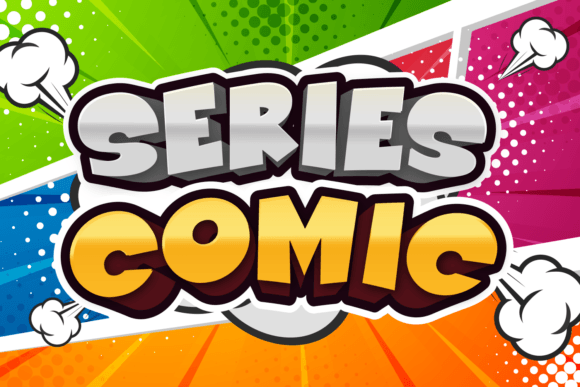
Introducing Series Comic Font: The Ultimate Superhero Display Font
The world of typography is vast and diverse, with numerous font styles to choose from, each with its unique characteristics and uses. Among these, display fonts hold a special place, particularly in designs that require a bold and eye-catching statement. One such font that has gained significant attention for its chunky letters and playful look is the Series Comic Font. This excellent superhero display font has become an incredible asset to any design library, offering a wide range of creative possibilities.
Key Features of Series Comic Font
- Chunky Letters: The Series Comic Font boasts thick, chunky letters that give it a robust and strong appearance, perfect for making a bold statement in any design.
- Playful Look: Despite its boldness, the font maintains a playful and fun vibe, making it suitable for a variety of creative projects, from children’s apparel to superhero-themed posters.
- Versatility: The font’s versatility is one of its standout features. It can be used for creating memorable posters, headlines, titles, book covers, signage, advertisements, kids’ t-shirts, apparel, and more.
Celebrating Creativity: Diverse Usage Ideas for Series Comic Font
The Series Comic Font’s adaptability makes it a favorite among designers. Here are some innovative ways to utilize this fantastic font:
- Posters and Flyers: Create eye-catching posters and flyers for events, movies, or product launches. The bold and playful nature of the font ensures that your message grabs attention.
- Headlines and Titles: Use Series Comic Font for headlines in newspapers, magazines, or digital publications to add a touch of excitement and dynamism.
- Book Covers: For authors and publishers looking for a font that can convey action, adventure, or fun, Series Comic Font is an excellent choice for book covers, especially for genres like superhero comics, children’s books, and young adult fiction.
- Signage: Whether it’s for indoor or outdoor use, this font can make your signage stand out, ensuring that your message is clear and visible from a distance.
- Advertisements: In advertising, capturing the audience’s attention is crucial. Series Comic Font, with its bold and playful look, can help create ads that are not only noticeable but also memorable.
- Kids’ T-Shirts and Apparel: The playful vibe of the font makes it perfect for designing kids’ t-shirts, hoodies, and other apparel. It’s also a great choice for superhero-themed merchandise.
Design Tips for Using Series Comic Font
To maximize the potential of Series Comic Font, consider the following design tips:
- Pair with Complementary Fonts: While Series Comic Font can be a powerful statement on its own, pairing it with simpler fonts can create a balanced and visually appealing design.
- Play with Colors: Don’t be afraid to experiment with vibrant colors that complement the playful nature of the font. Bright colors can enhance the superhero feel, making your design more engaging.
- Utilize White Space: Effective use of white space around your text can make the bold letters of Series Comic Font pop even more, ensuring your design doesn’t feel cluttered.
- Consider the Context: Ensure that the font aligns with the overall theme and message of your design. The superhero and playful vibe of Series Comic Font makes it suitable for projects targeting a younger audience or those with a fun and adventurous theme.
The Impact of Series Comic Font on Design
The inclusion of Series Comic Font in a design library can significantly impact the creative output. Its unique blend of boldness and playfulness opens up a myriad of possibilities for designers. Here are some impacts it can have:
- Increased Creativity: Knowing that a font like Series Comic Font is available can inspire designers to explore more creative and unconventional ideas.
- Enhanced Visual Appeal: The font’s chunky and playful characteristics can add a fresh and modern touch to designs, making them more visually appealing.
- Broader Audience Reach: The fun and approachable vibe of the font can help designs connect with a broader audience, especially younger viewers or those looking for content that is entertaining and engaging.
Series Comic Font stands out as an excellent superhero display font, offering a unique combination of chunky letters and a playful look. Its versatility and wide range of applications make it an invaluable addition to any design library. Whether you’re creating posters, book covers, advertisements, or kids’ apparel, Series Comic Font can help you achieve your design goals with its bold and eye-catching style. By incorporating this fantastic font into your projects, you can ensure that your designs are not only memorable but also visually captivating.